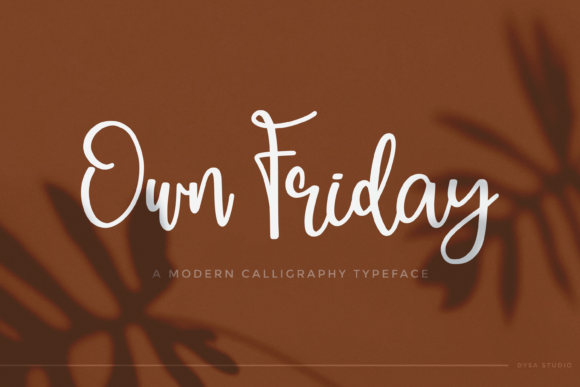
In a world saturated with digital noise, it's the rare font that can make a lasting impression, a font that speaks to the heart and commands attention with its grace and elegance. Such a font is Own Friday, a modern calligraphy masterpiece that transforms creative ideas into captivating expressions.
Own Friday's essence lies in its ability to capture the essence of love, passion, and longing—a font that's as emotive as it is visually stunning. With its sweeping curves, delicate swashes, and a touch of romantic flair, Own Friday draws you in, captivating you with its undeniable charm.
Imagine your words, adorned with the beauty of Own Friday, becoming visual poetry. Whether it's a love letter, a heartfelt message, or a quote meant to inspire, Own Friday elevates your words, imbuing them with an irresistible allure. As the saying goes, love speaks in flowers; with Own Friday, love speaks in fonts.
Step into the world of Own Friday and discover a world of creative possibilities. This modern calligraphy font is your perfect companion for any branding endeavor, whether you're designing logos, creating product packaging, or conceptualizing stunning invitations. Own Friday's versatility knows no bounds.
Unleash your creativity and let Own Friday be your muse. This dazzling font turns ordinary words into captivating statements, transforming mundane designs into works of art. With Own Friday, you can craft social media posts that pop, T-shirts that sell, and labels that demand attention.
Own Friday is more than just a font; it's an artistic expression, a testament to the power of typography. its sweeping curves and delicate flourishes captivate the eye, inviting you to explore the depths of your own creativity. Let Own Friday be your guide, as you craft designs that ignite emotions and leave a lasting impression.
With its seamless blend of elegance and charm, Own Friday is the ultimate choice for those seeking a font that speaks to the heart. Its ability to transform ordinary text into visual masterpieces makes it a must-have for designers, marketers, and creative professionals seeking to make an impact.
Don't settle for ordinary fonts. Experience the magic of Own Friday today and elevate your creative projects to new heights. Let your imagination soar and create designs that captivate, inspire, and ignite the senses. Own Friday is more than just a font; it's a gateway to a world of endless creative possibilities.